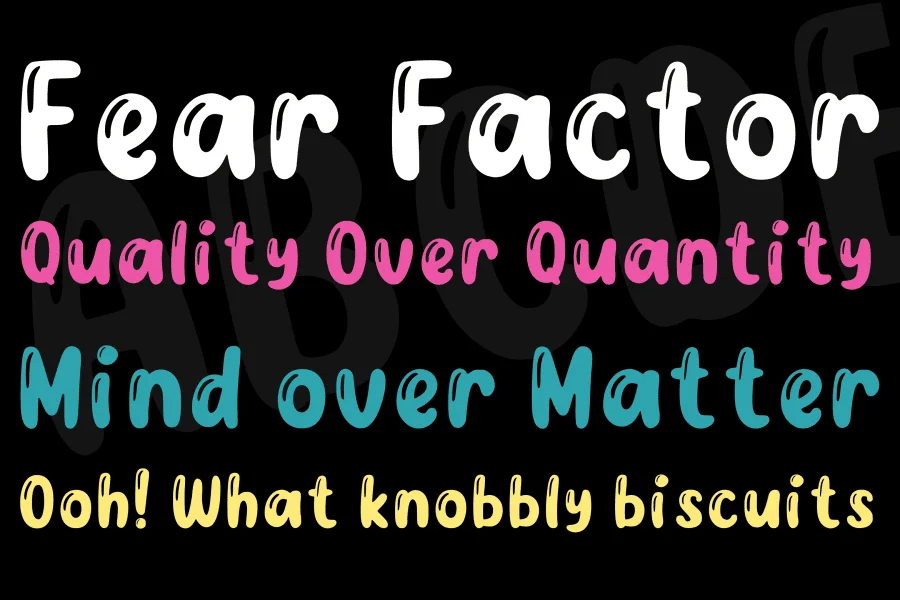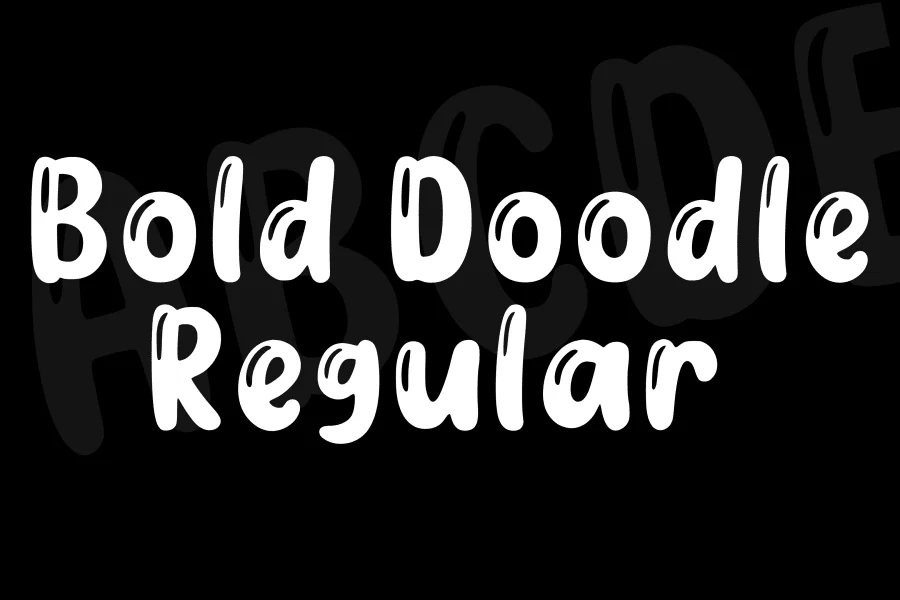
Bold Doodle is a bold and playful handwritten display font designed to bring energy, creativity, and personality to your designs. With its expressive strokes and doodle-inspired character, this font delivers a fun yet impactful visual style.
Perfect for posters, t-shirt designs, logos, branding, social media graphics, and children-focused projects, Bold Doodle adds a lively and approachable feel to any composition.
- Bold, hand-drawn doodle style
- Clean and easy-to-read shapes